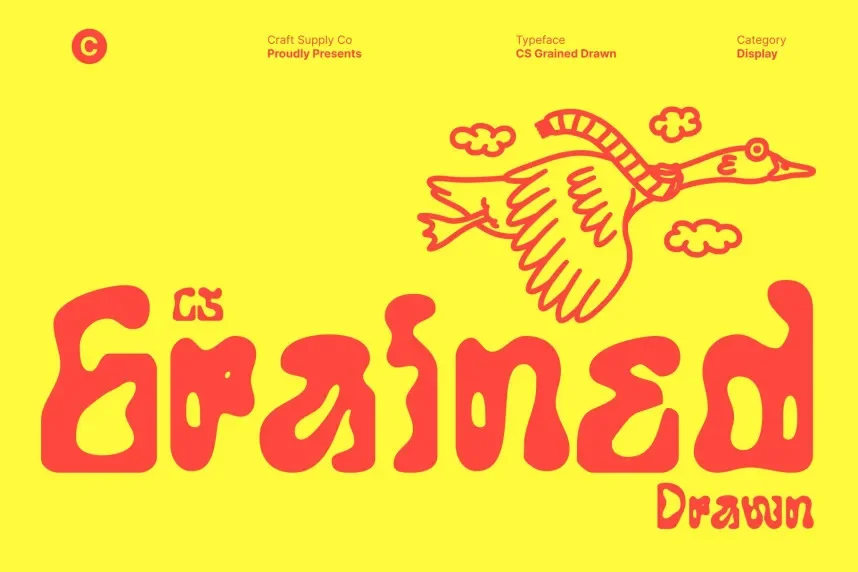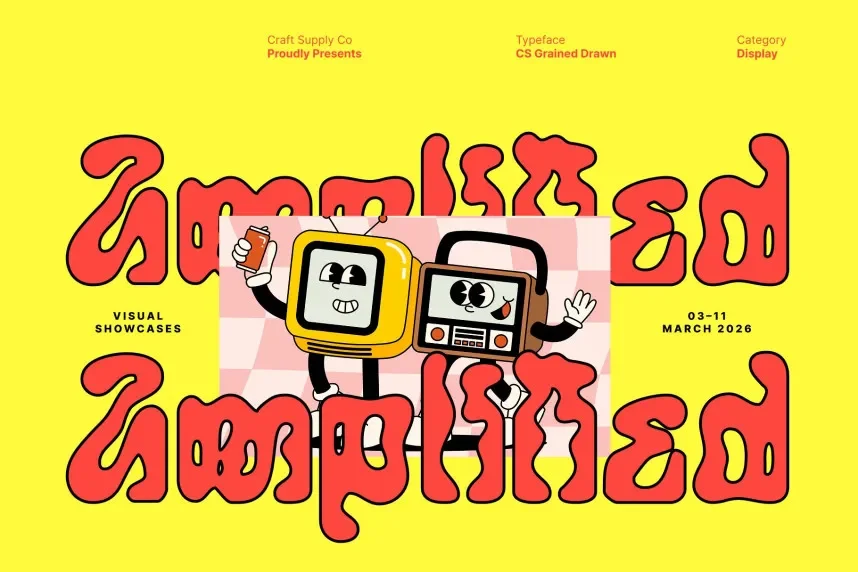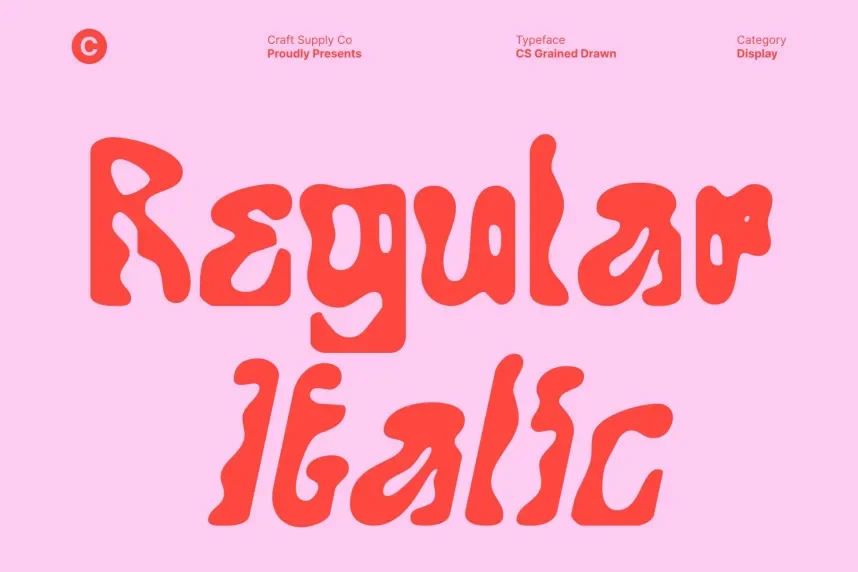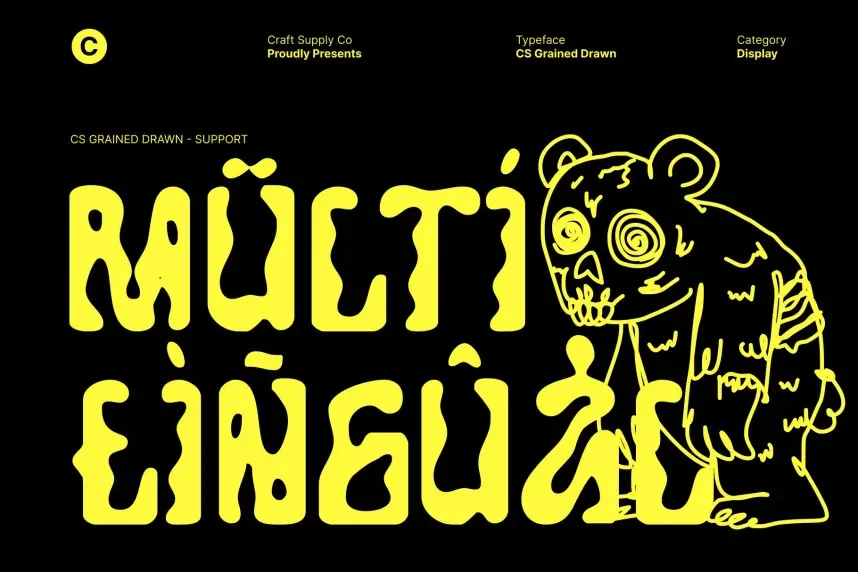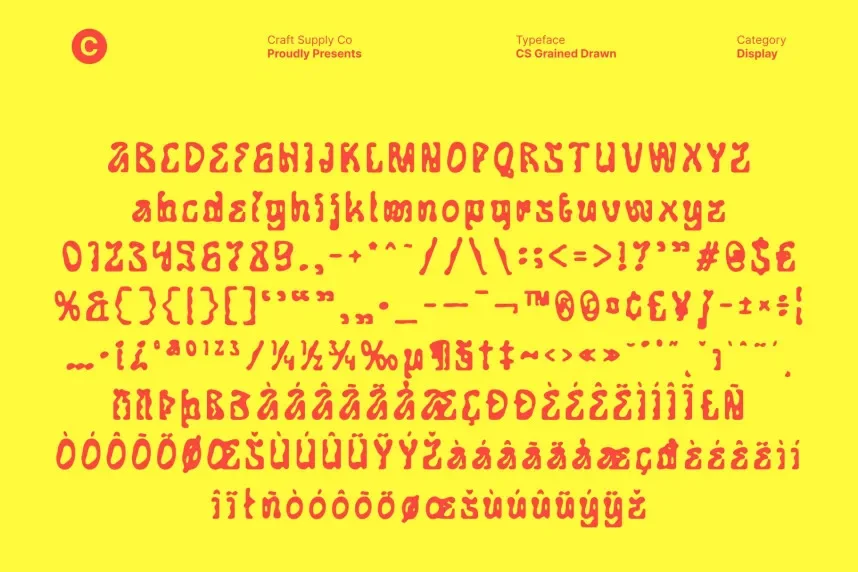
CS Grained Drawn Font addresses the need for a textured, distressed font that provides a strong retro feel while maintaining legibility. It’s perfect for designs that require an industrial or worn-out aesthetic.
CS Grained is a display font with rough, uneven edges and an earthy texture. The hand-drawn nature of the font adds a tactile feel, making it ideal for creating a vintage or industrial atmosphere.